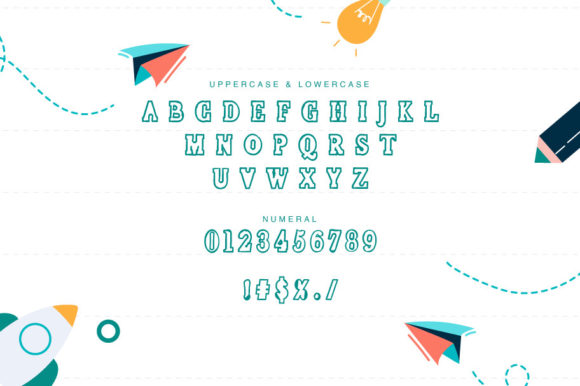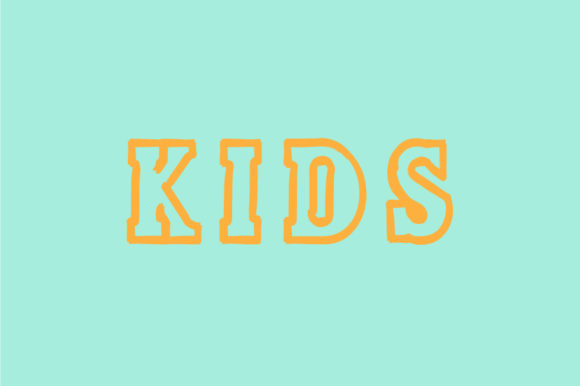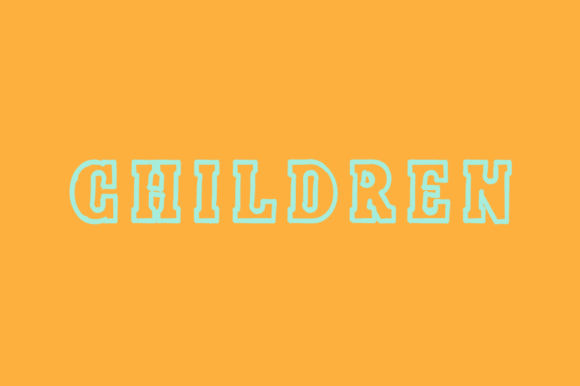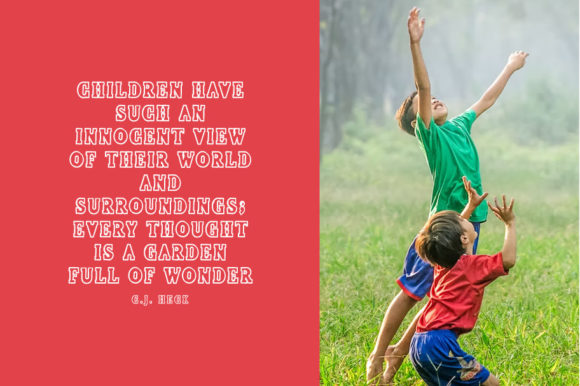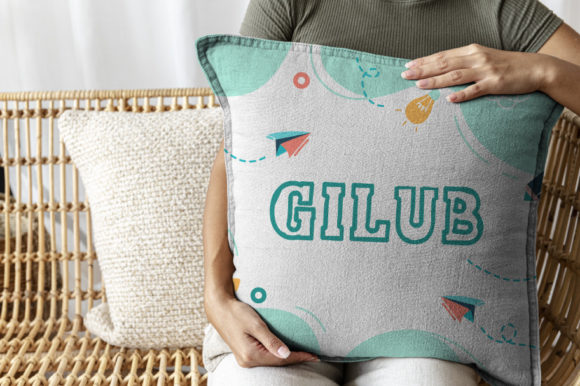
Gilub Font: The Ultimate Display Font for Unique Designs
Are you tired of using the same old fonts for your designs? Look no further than Gilub Font, a cool, bold, and outlined display font that’s perfect for adding a unique touch to your web designs, business cards, and more. In this article, we’ll dive into the features and benefits of Gilub Font, and explore how it can elevate your design game.
What is Gilub Font?
Gilub Font is a modern display font that’s designed to make a statement. Its bold and outlined style makes it stand out from the crowd, and its versatility ensures that it can be used for a wide range of design projects. Whether you’re a designer, craftsperson, or simply someone who loves to dabble in design, Gilub Font is an excellent choice for anyone looking to add some personality to their work.
Key Features of Gilub Font
- Bold and Outlined Style: Gilub Font’s bold and outlined style makes it perfect for creating eye-catching designs that demand attention.
- Highly Versatile: Gilub Font can be used for a wide range of design projects, from web designs and business cards to posters, flyers, and more.
- Easy to Read: Despite its bold style, Gilub Font is surprisingly easy to read, making it perfect for designs that require a clear and concise message.
- Unique and Creative: Gilub Font’s unique outline style gives it a creative and artistic feel that’s perfect for designers who want to add a personal touch to their work.
Benefits of Using Gilub Font
So why choose Gilub Font for your design projects? Here are just a few benefits of using this amazing display font:
- Adds Personality to Your Designs: Gilub Font’s unique style ensures that your designs stand out from the crowd and reflect your personality.
- Perfect for Branding and Marketing: Gilub Font’s bold and outlined style makes it perfect for creating eye-catching logos, business cards, and marketing materials.
- Easy to Pair with Other Fonts: Gilub Font’s versatility ensures that it can be paired with a wide range of other fonts to create a unique and cohesive look.
- Great for Web Designs: Gilub Font’s clean and bold style makes it perfect for web designs, from headings and titles to buttons and calls-to-action.
How to Use Gilub Font in Your Designs
Using Gilub Font in your designs is easy! Here are a few tips to get you started:
- Use it as a Headline Font: Gilub Font’s bold style makes it perfect for use as a headline font, adding emphasis and attention-grabbing power to your designs.
- Pair it with Other Fonts: Experiment with pairing Gilub Font with other fonts to create a unique and cohesive look.
- Add a Pop of Color: Gilub Font’s outlined style makes it perfect for adding a pop of color to your designs, creating visual interest and drawing attention to key elements.
In conclusion, Gilub Font is an amazing display font that’s perfect for designers, craftspersons, and anyone looking to add a unique touch to their work. Its bold and outlined style, versatility, and ease of use make it an excellent choice for a wide range of design projects. Whether you’re creating web designs, business cards, or marketing materials, Gilub Font is sure to make your designs stand out from the crowd.